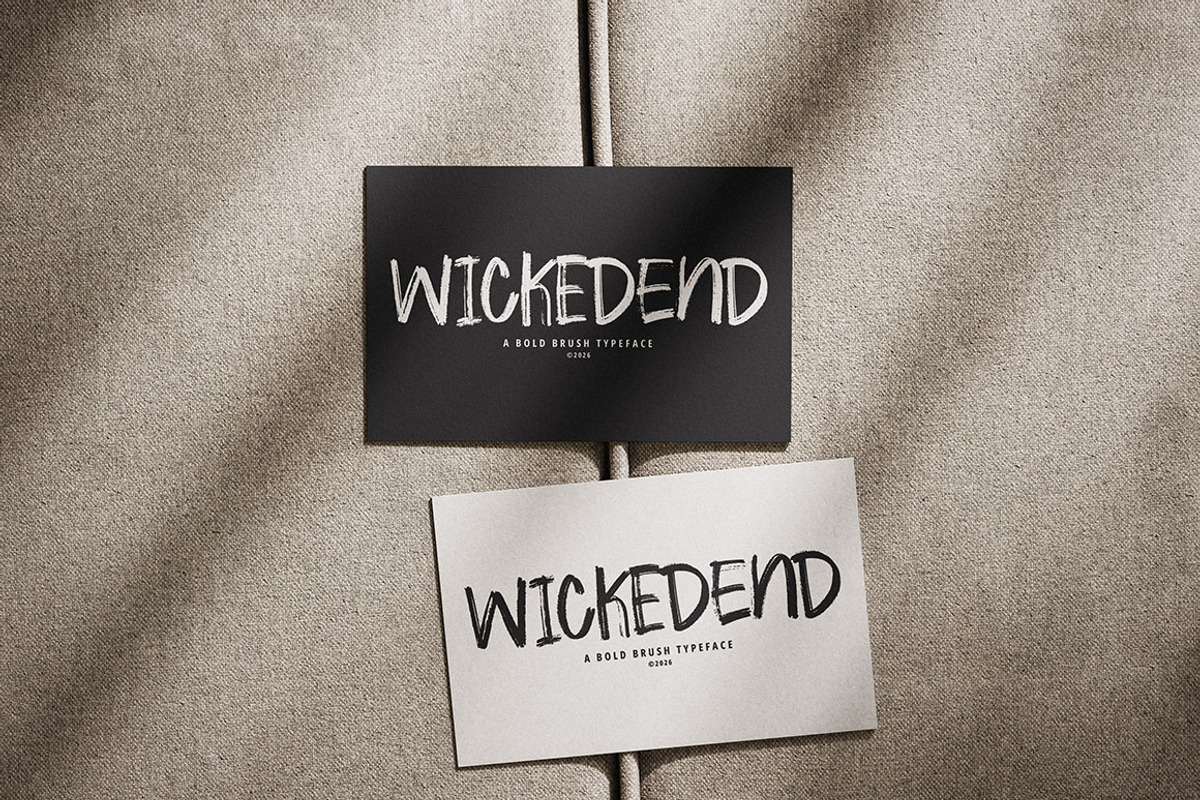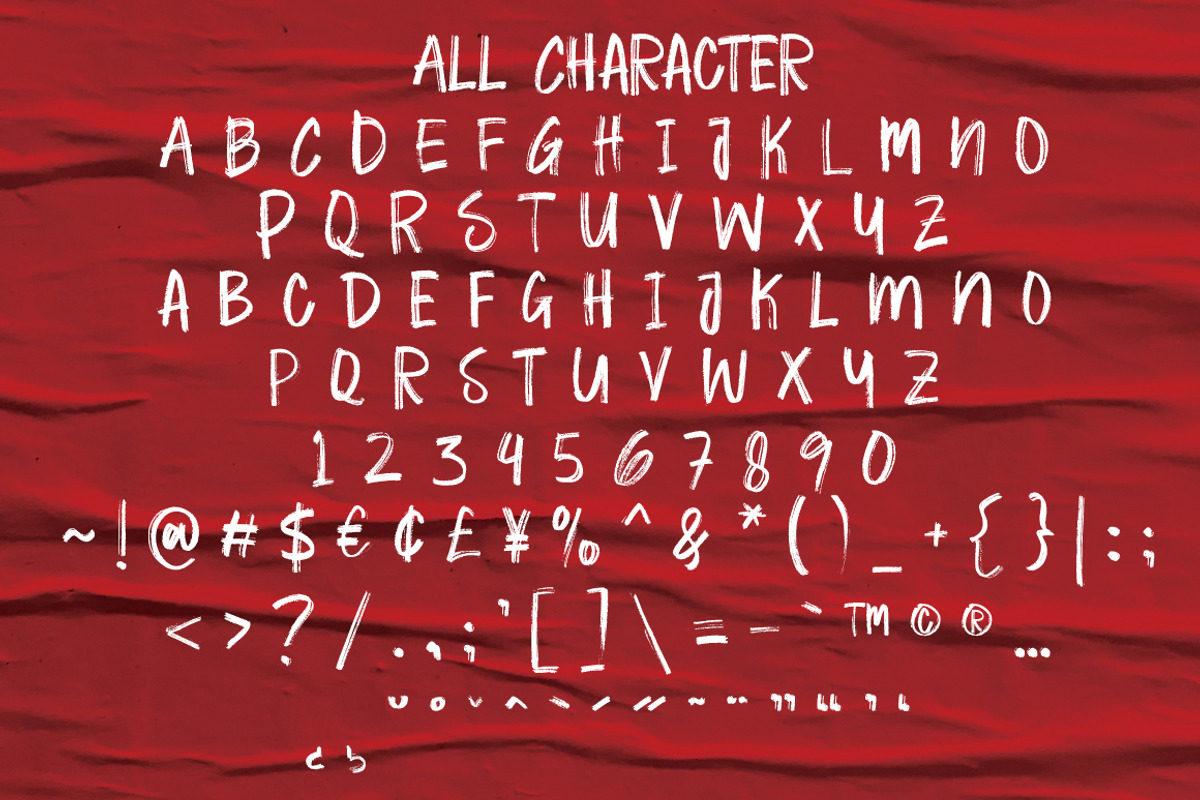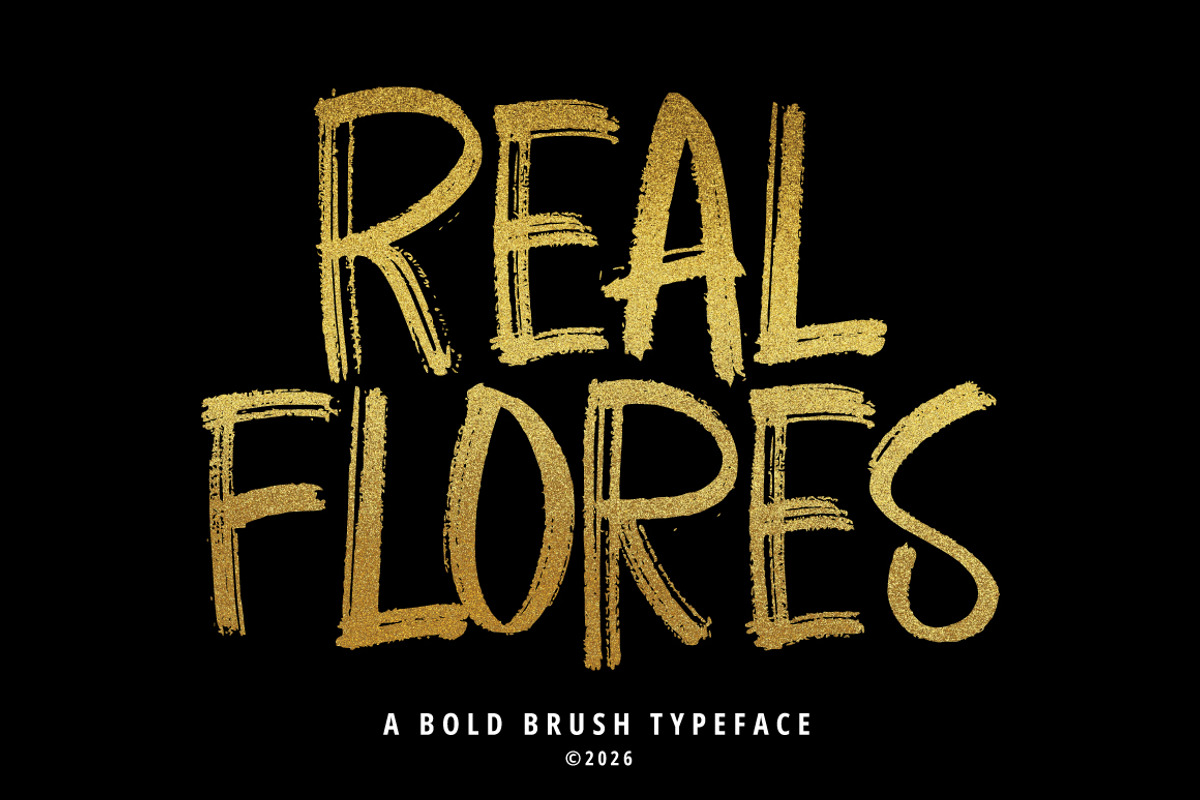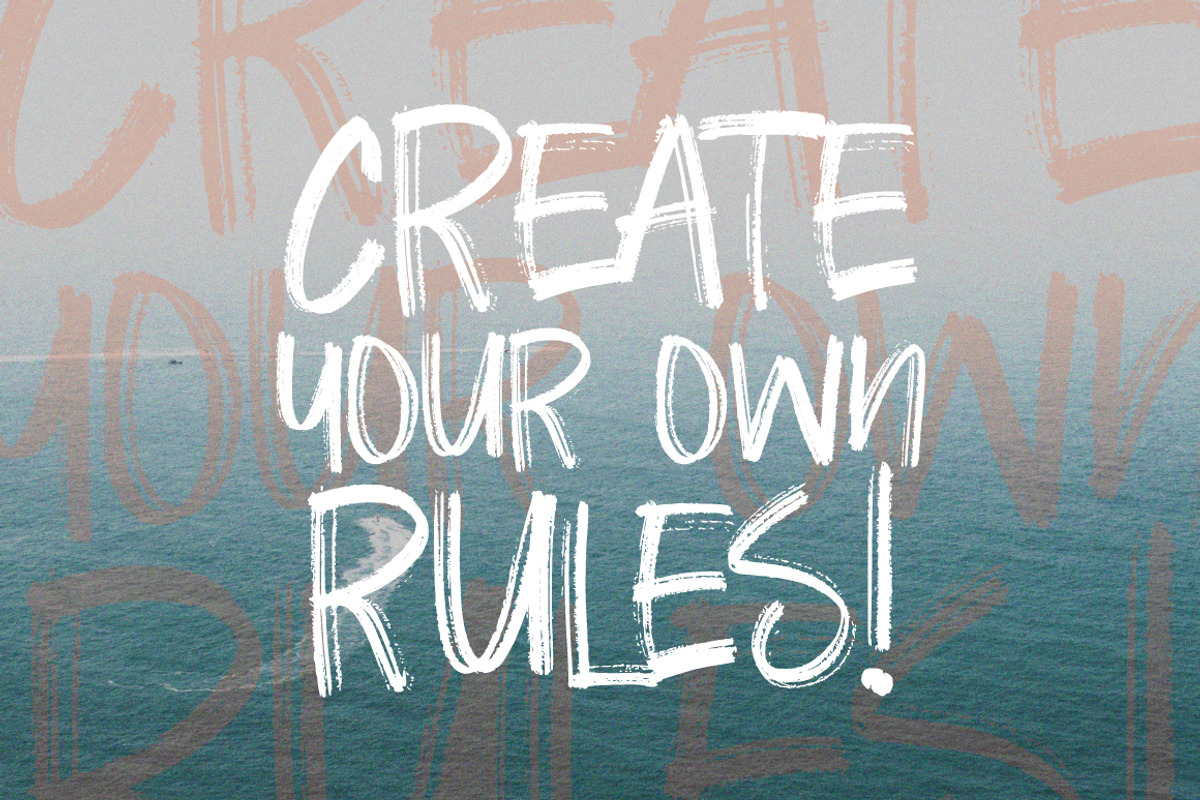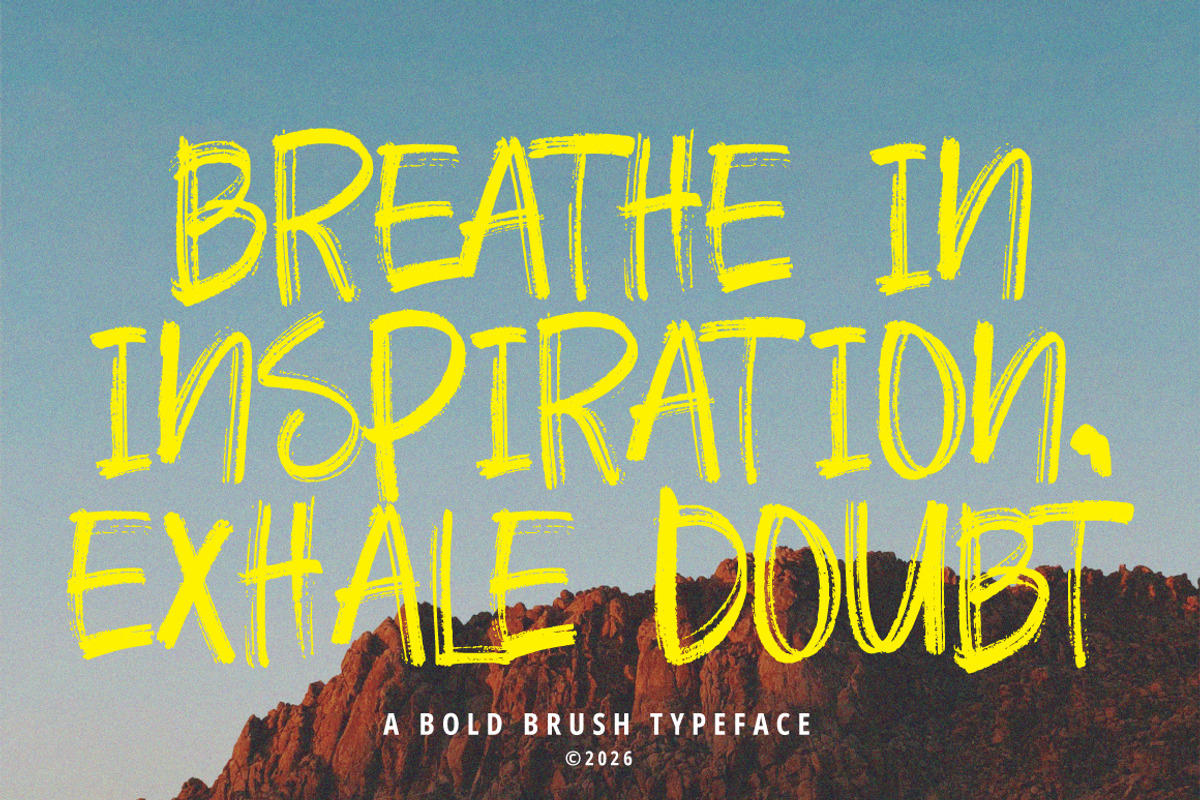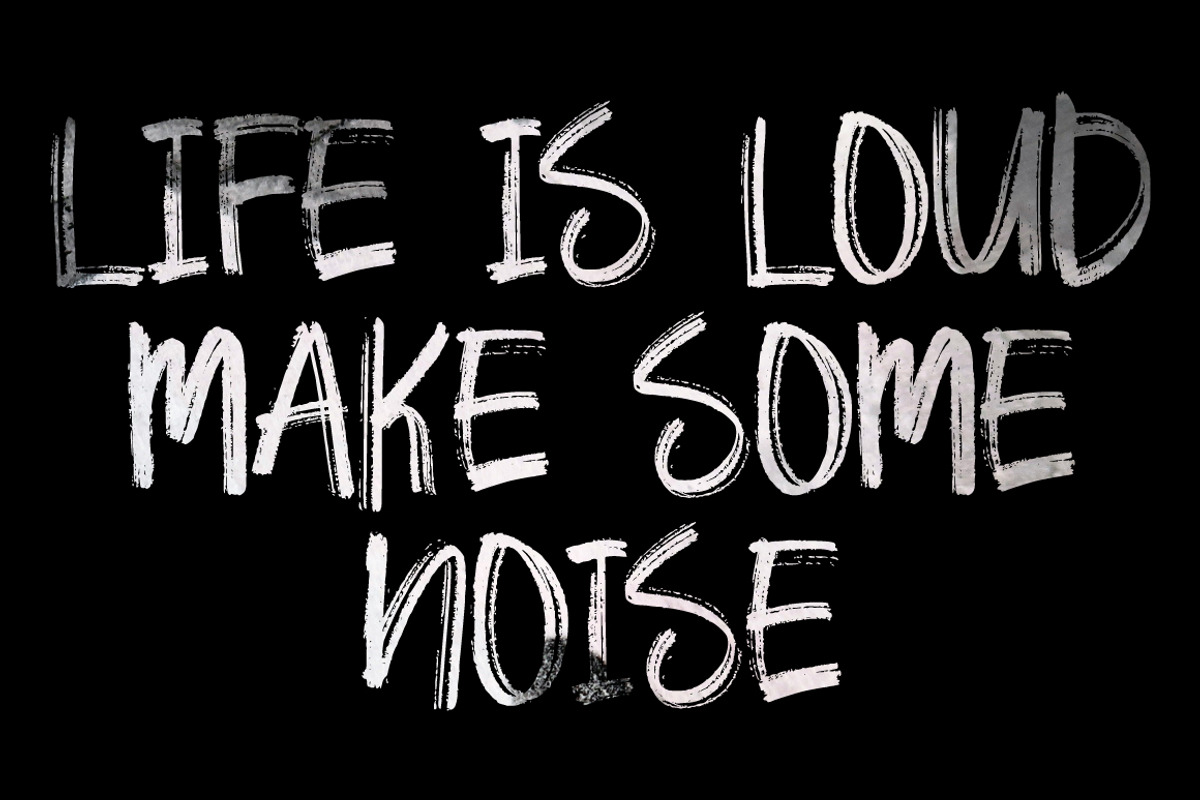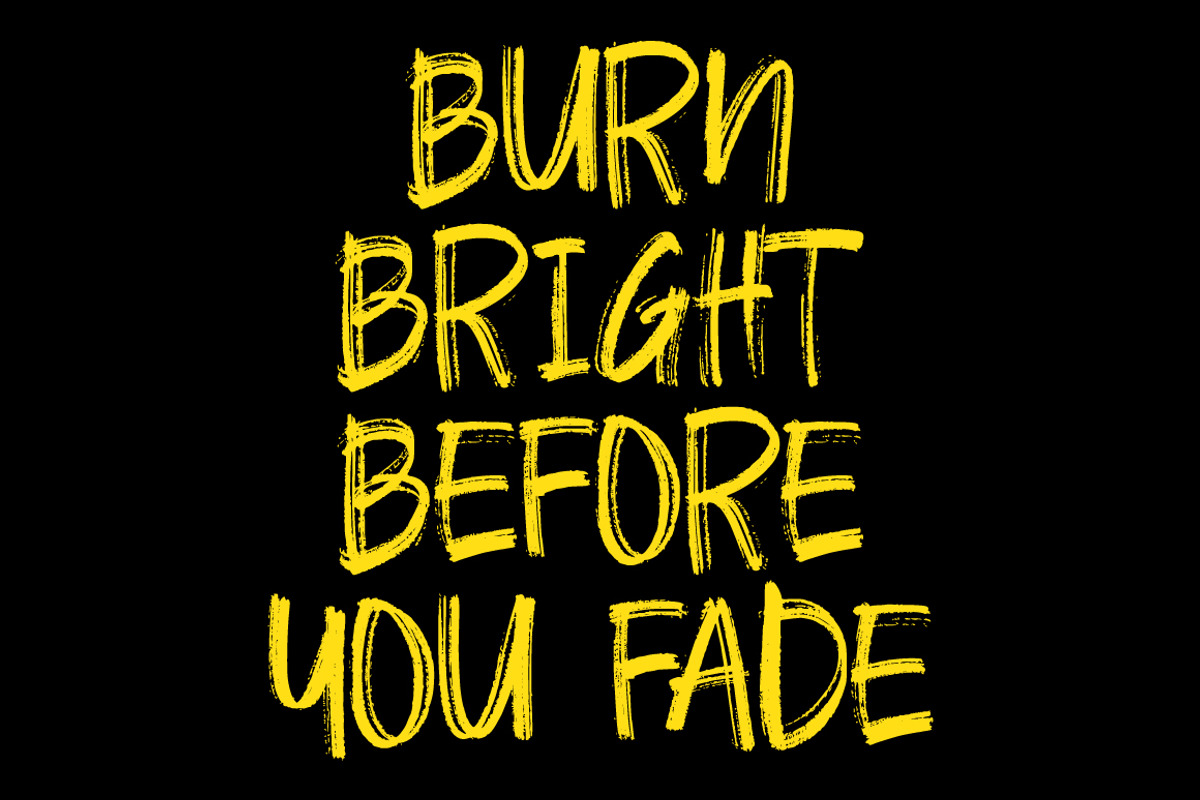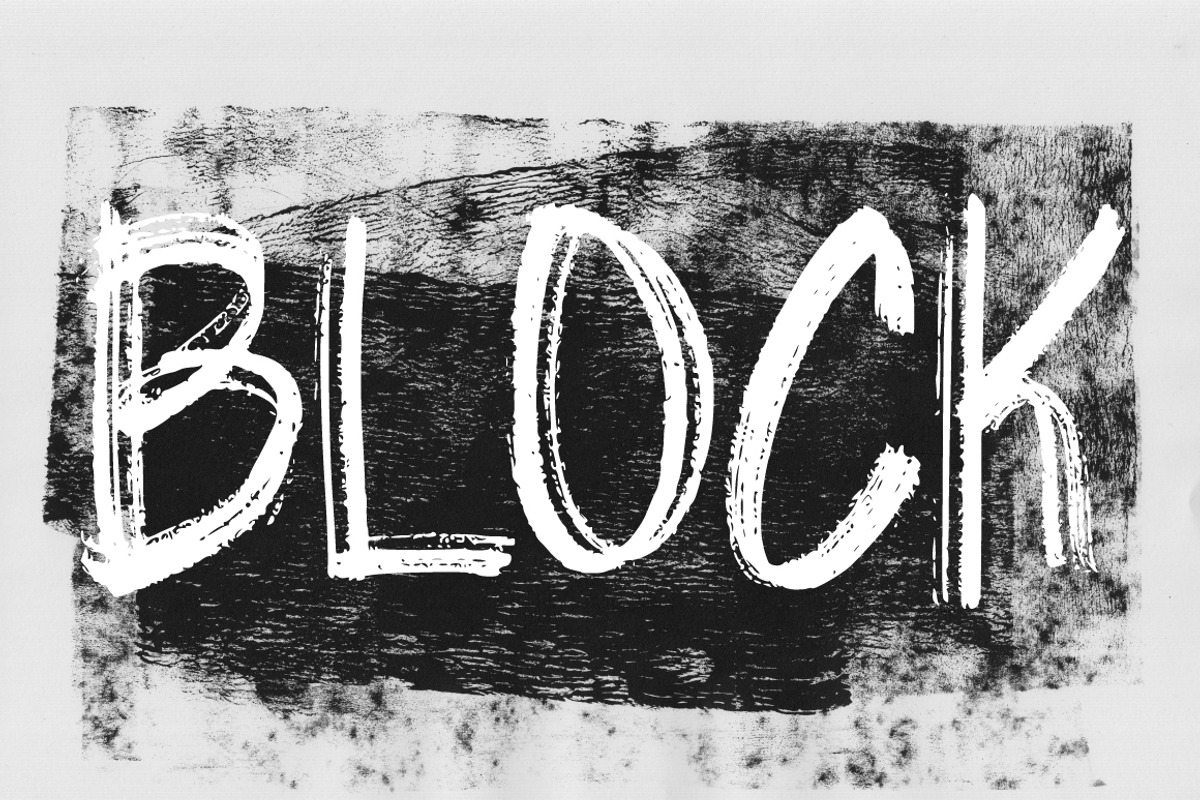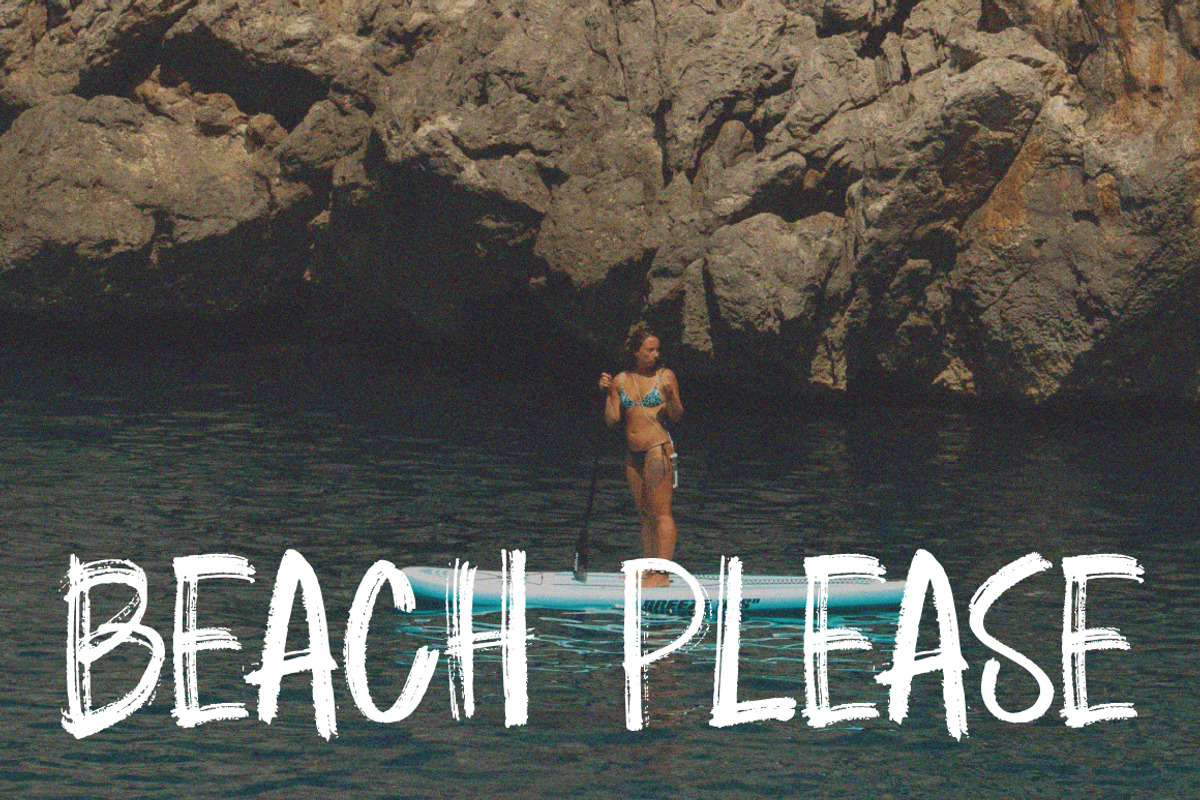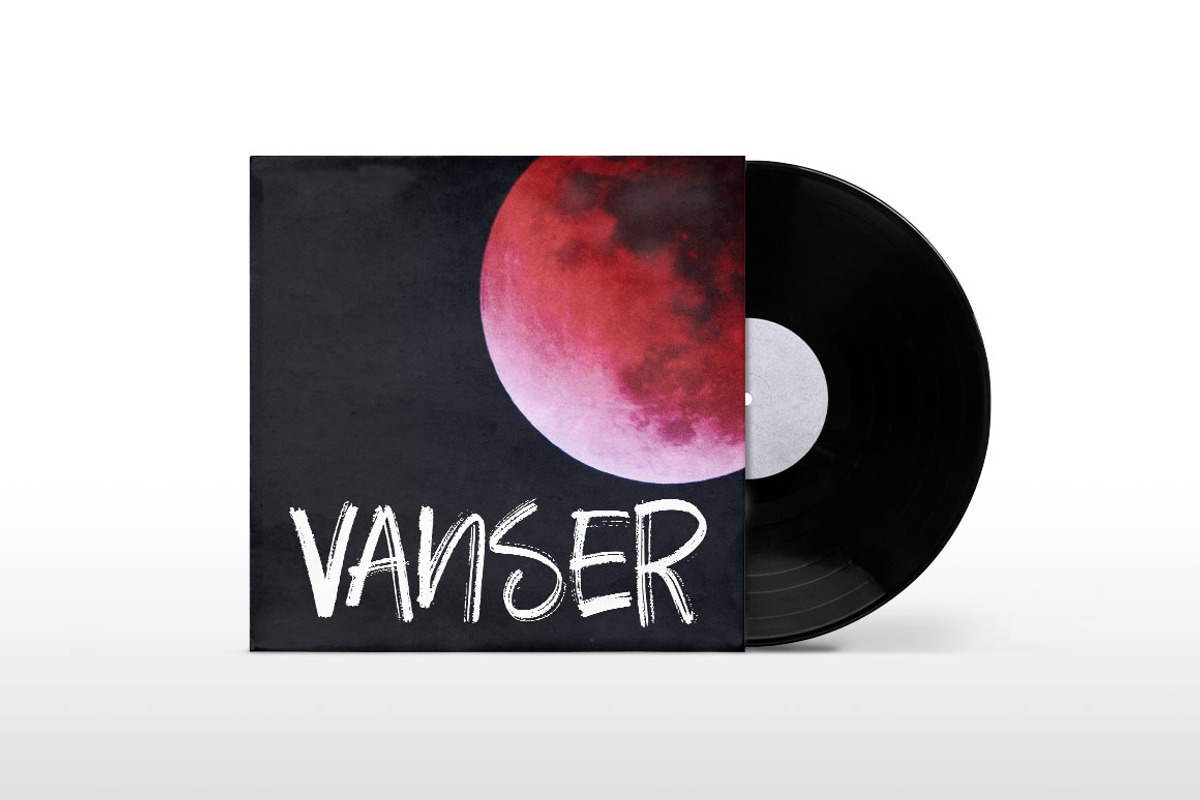
Real Flores – Bold Brush
Real Flores – A Bold Brush Typeface
Unleash raw energy in your designs with Real Flores, a powerful, textured brush font crafted for high-impact typography. Featuring detailed dry-brush strokes, tall narrow letterforms, and an authentic handmade look, this typeface delivers grit, confidence, and modern street style.
Real Flores is perfect for urban apparel, sports branding, movie posters, album covers, gaming graphics, and edgy packaging. Its bold presence guarantees your headlines command attention instantly.
Real Flores Brush Features :
Uppercase & Lowercase International Languange & Symbols Support Punctuation.
Suitable for:
Logos & Personal Branding
poster design
merchandise
Social Media Content
Photography Watermarks
Quotes & Editorial Design
food packaging & children's products
Real Flores Brush was created for designers, business owners, and creators who want to create a classy and memorable visual identity.